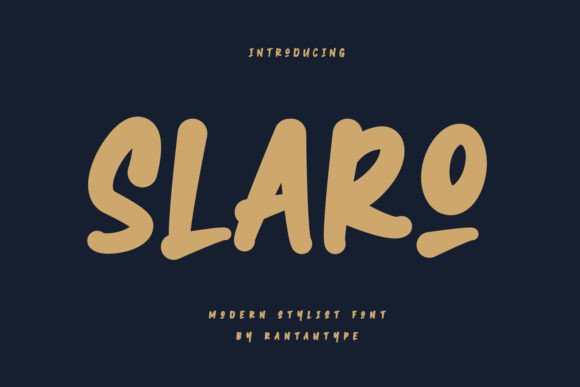
Step into the world of Slaro, a modern and bold handwritten script font that speaks volumes. Its strong and dynamic letterforms exude confidence and style, making it the perfect choice for those seeking a font that makes a statement. With Slaro, you'll captivate your audience through logos, headlines, and social media graphics that radiate contemporary flair.
Slaro's meticulous design features subtle irregularities and brush-like strokes, adding a touch of authenticity that brings your creations to life. It's not just a font; it's an expression of your unique personality and style. Whether you're a seasoned designer or just starting, Slaro is the perfect tool to unleash your creativity and leave a lasting impression.
With Slaro, your designs will transcend the ordinary and enter a realm of sophistication and elegance. Its versatility shines in a variety of applications, from wedding invitations and greeting cards to branding and marketing materials. It effortlessly adapts to any project, adding a touch of sophistication and charm.
Slaro is more than just a font; it's an experience. It's the embodiment of confidence and style, ready to elevate your designs to new heights. Embrace the power of Slaro and let your creativity soar. Its bold and dynamic letterforms will make your words dance off the page, leaving a trail of inspiration in their wake.
So why settle for ordinary fonts when you can have Slaro? Its captivating design and endless possibilities will transform your creative endeavors into masterpieces. Experience the difference with Slaro, and let your designs speak volumes. Join the Slaro revolution today and unlock a world of creative possibilities!